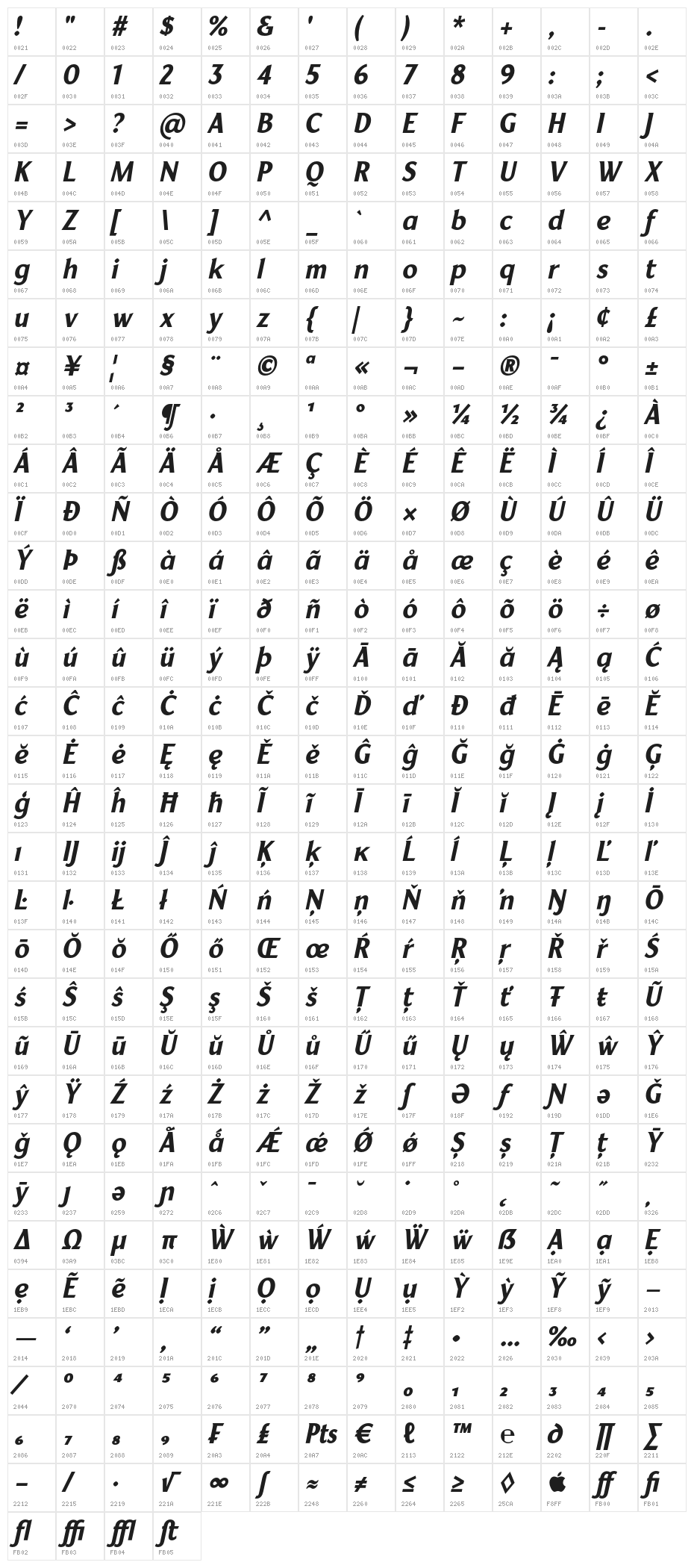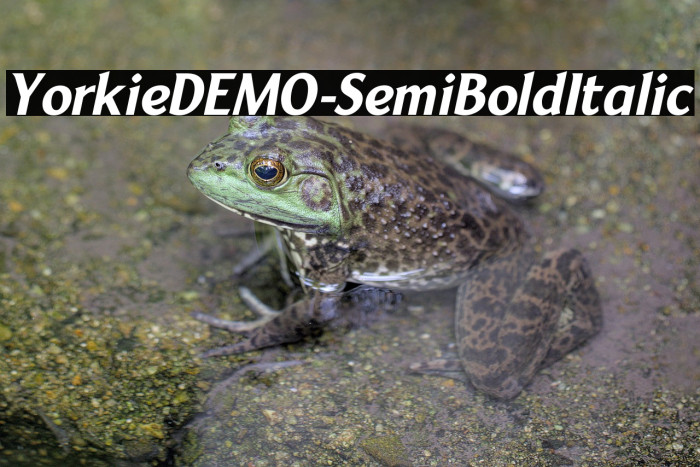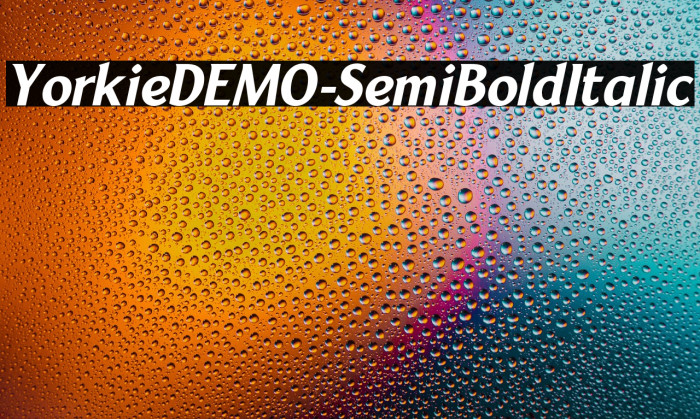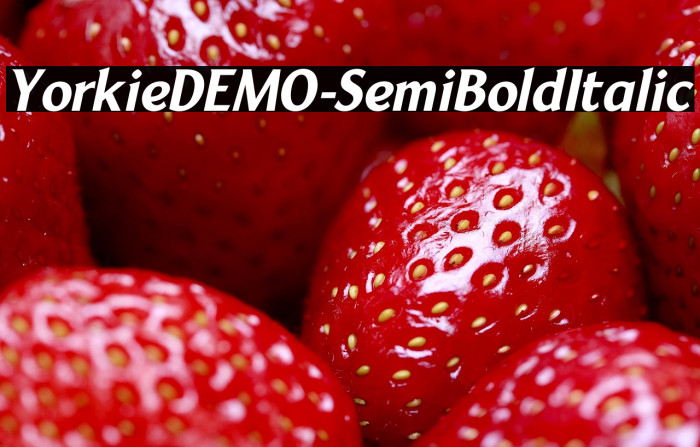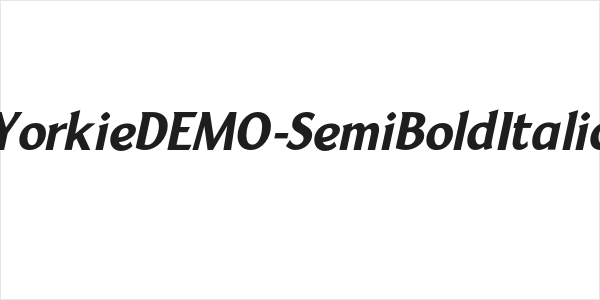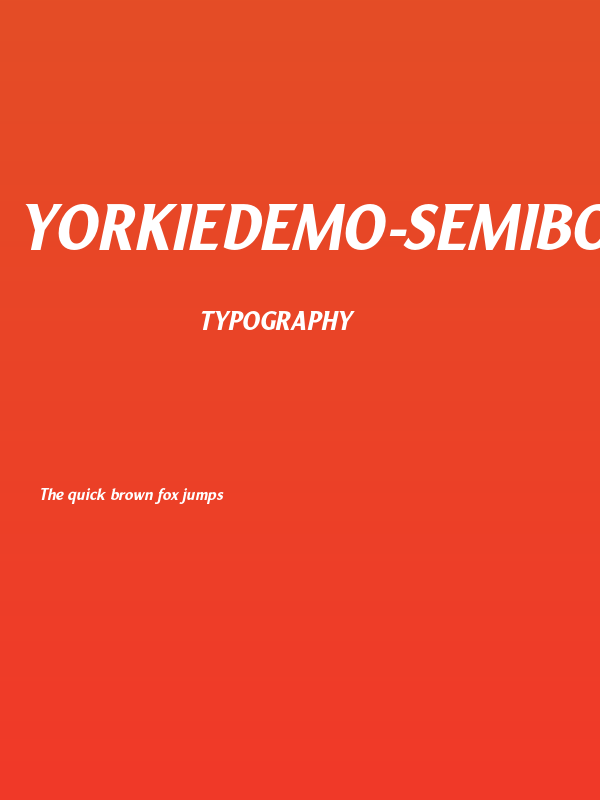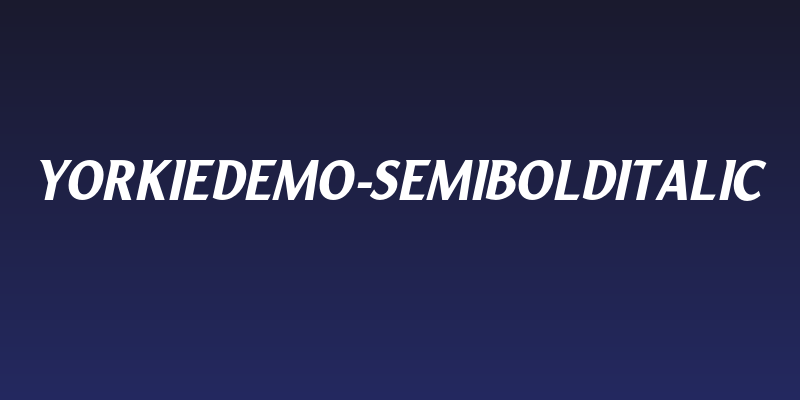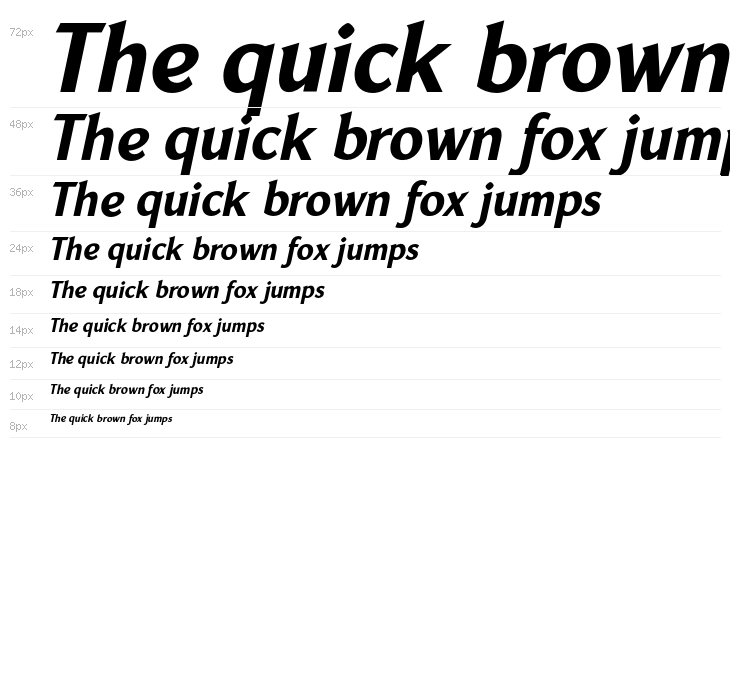
YorkieDEMO-SemiBoldItalic Font
YorkieDEMO-SemiBoldItalic Description
This font features a dynamic and energetic style with a semi-bold weight and italic slant. The characters are slightly condensed, giving a compact and efficient appearance. The strokes are smooth and fluid, with moderate contrast between thick and thin lines, enhancing readability while maintaining a stylish flair. The uppercase letters are bold and assertive, while the lowercase letters maintain a consistent flow. The numerals are clear and well-defined, making them suitable for various applications. The special characters are distinct and harmonize well with the overall design, providing versatility for creative projects.